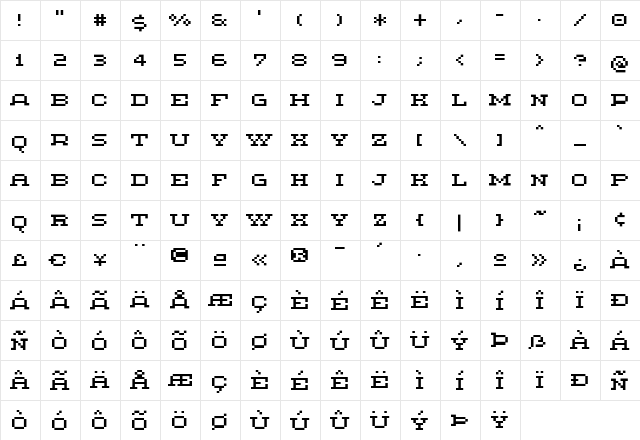
Methodic Regular
Design Context for Methodic Typeface
Methodic takes a measured approach to typography — its balanced proportions and neutral character make it a reliable workhorse for both digital and print work.